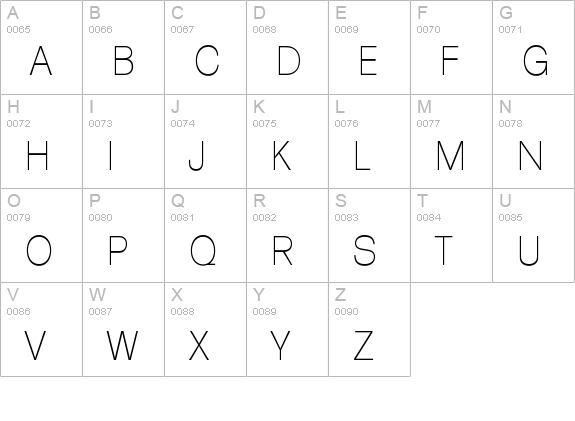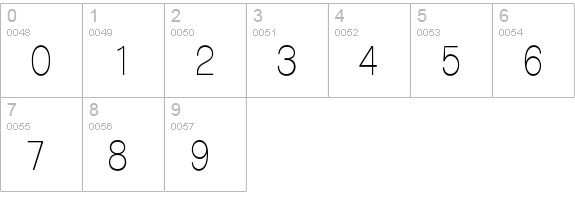
Formula-Xlight is a modern and sleek typeface designed for those seeking a clean and minimalist look in their projects. With its elegant and sophisticated design, Formula-Xlight is the perfect choice for branding, logos, and editorial design. The thin and delicate lines of this font give it a refined and contemporary feel, making it ideal for creating a polished and professional appearance. One of the best features of Formula-Xlight is that it is completely free to download at FontsMarket.com. This means that you can easily access this stylish font for all your design needs without any cost. Whether you are a graphic designer, a web developer, or a content creator, Formula-Xlight offers versatility and creativity for any project. Don't miss out on this opportunity to enhance your designs with the elegant and timeless appeal of Formula-Xlight. Download it now and elevate your design game to the next level.